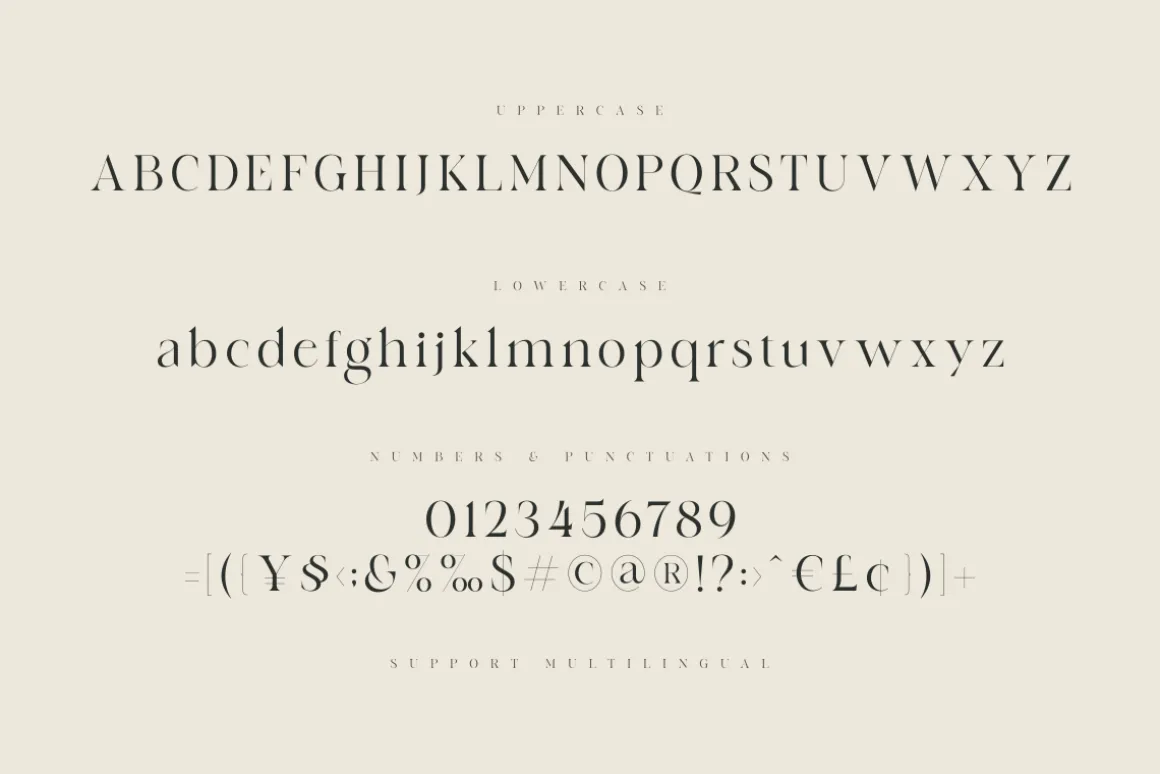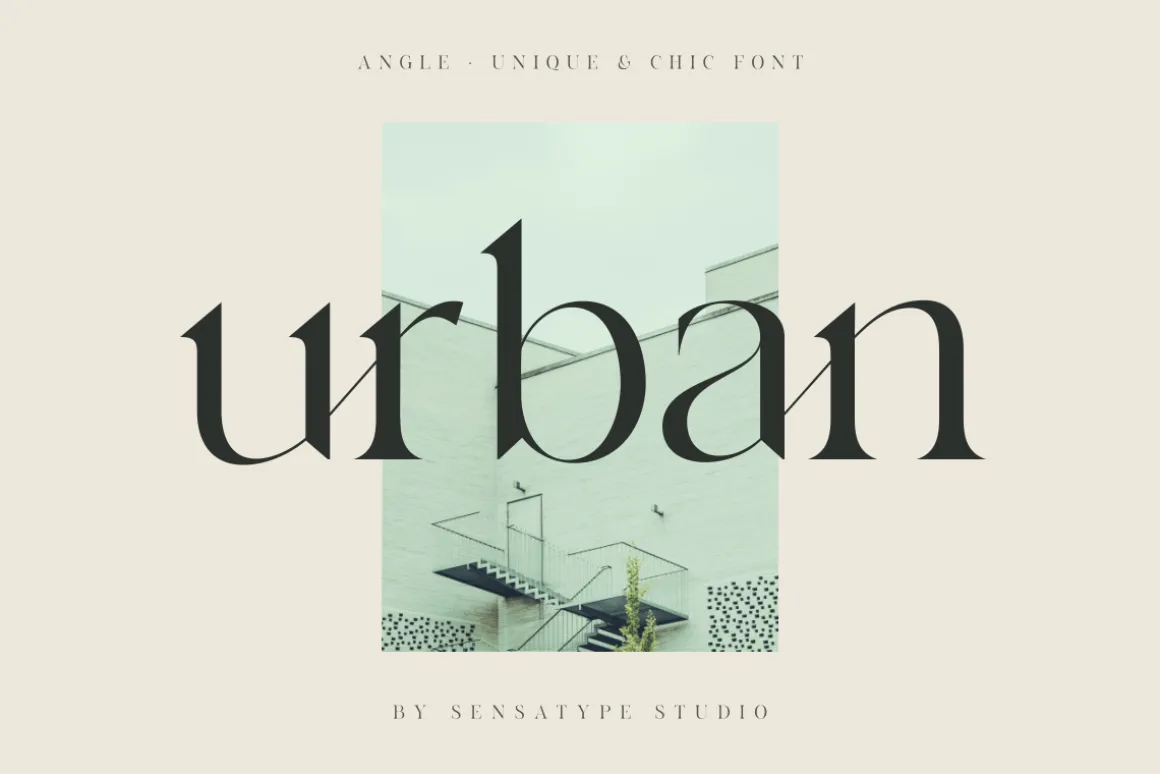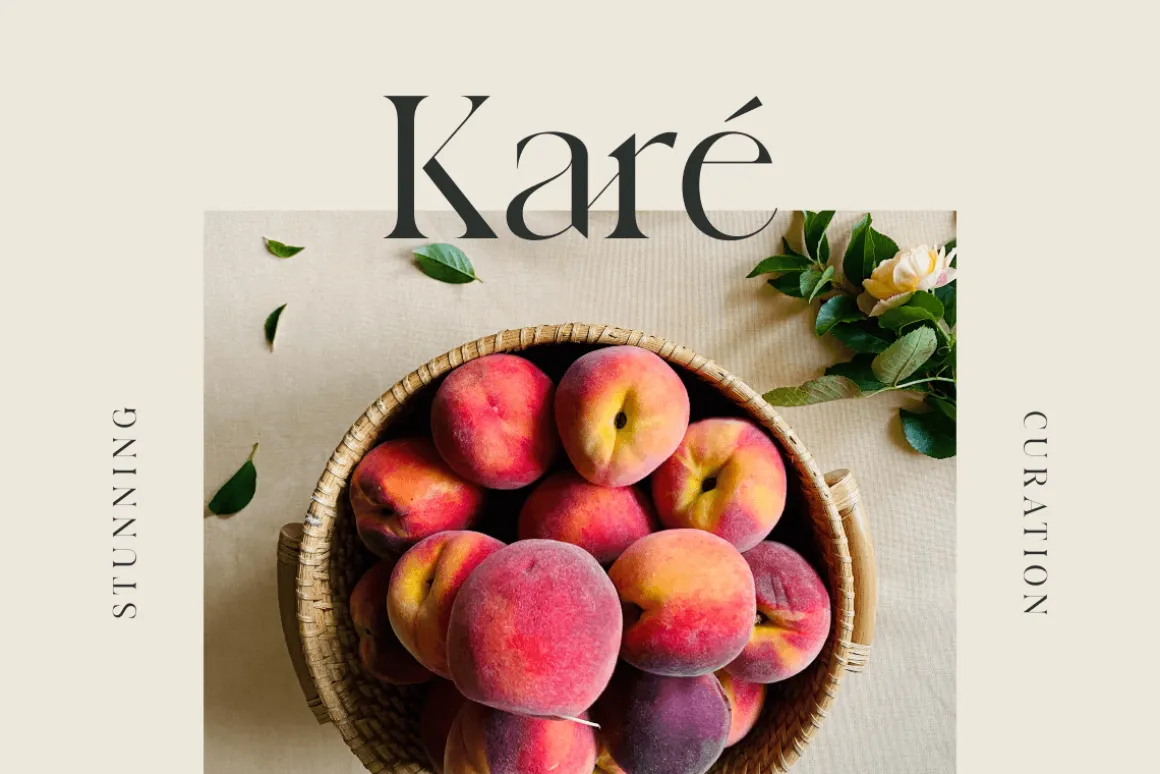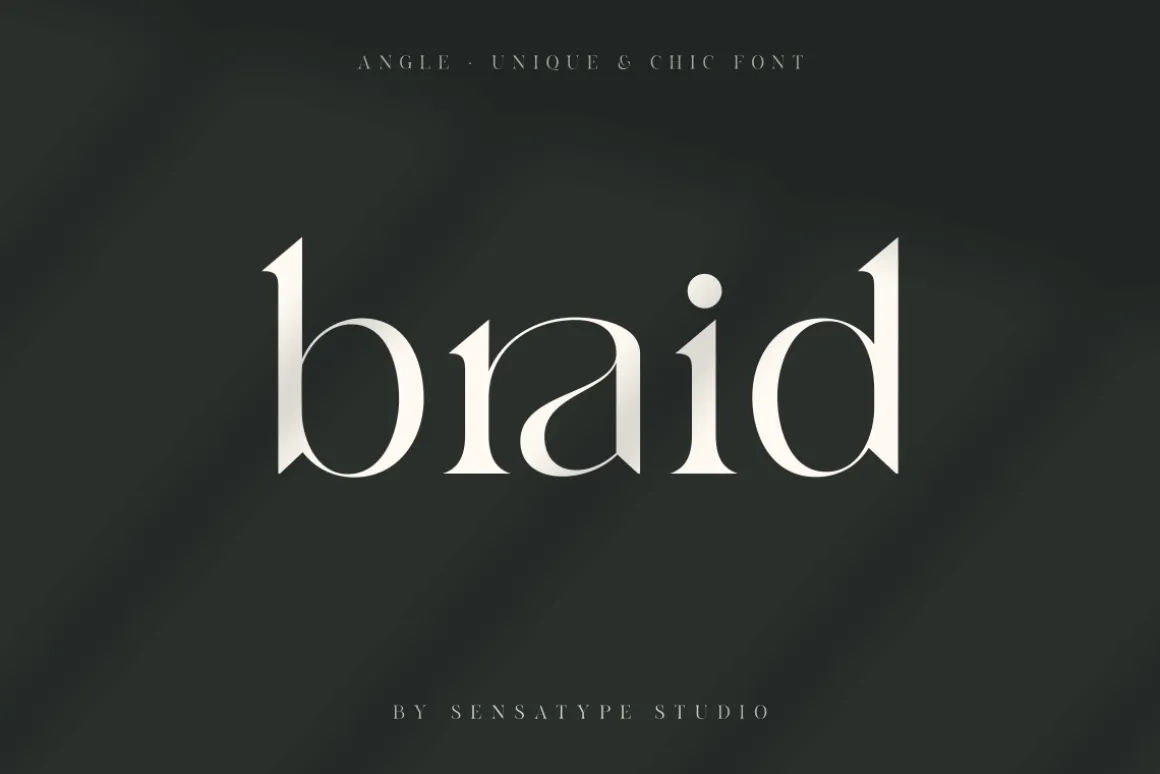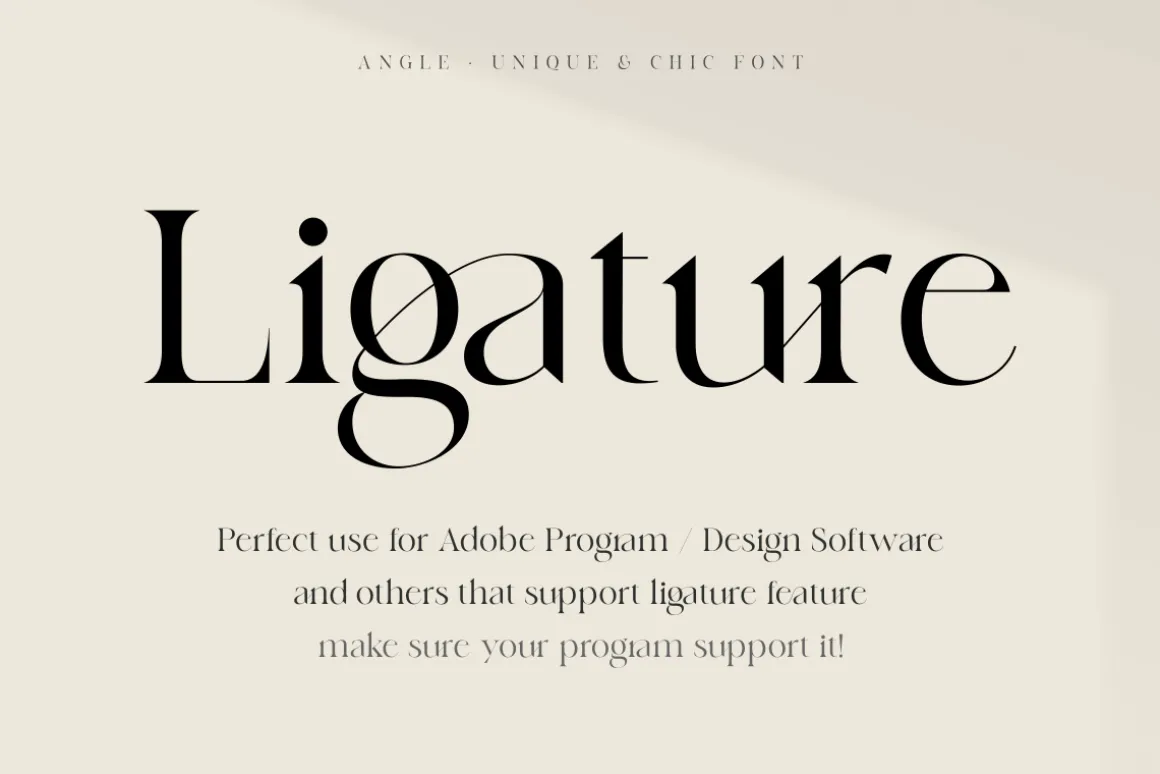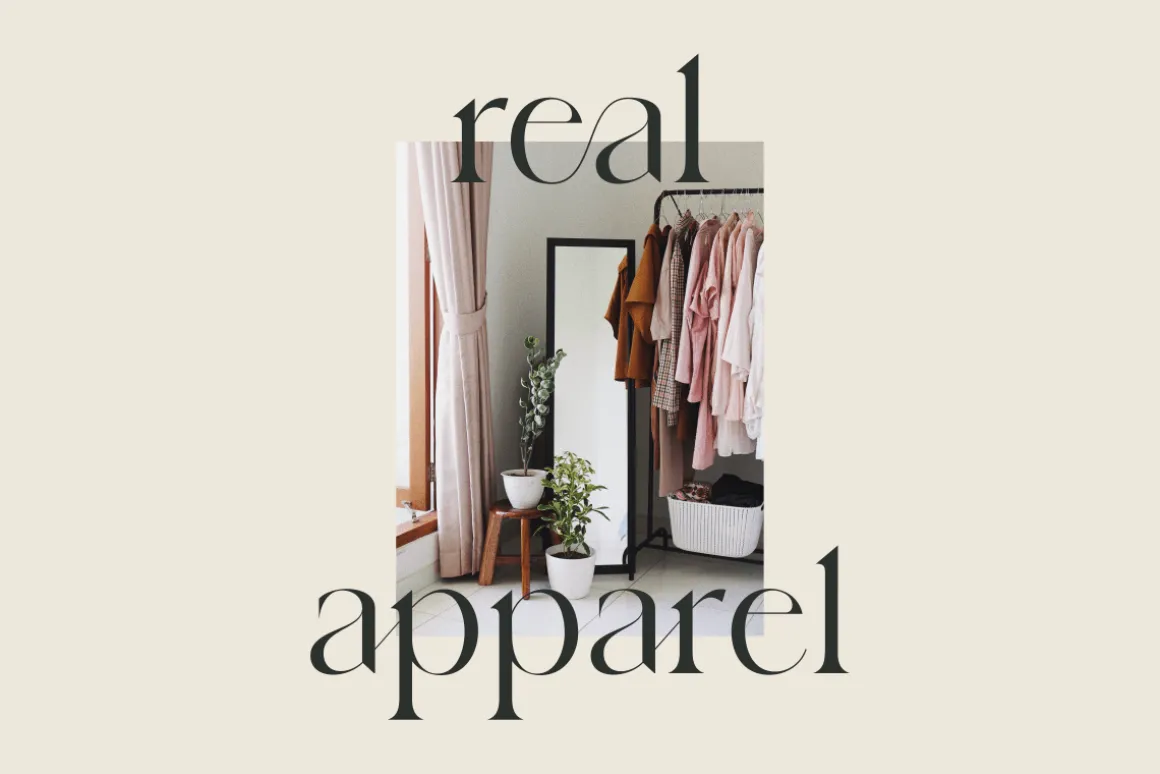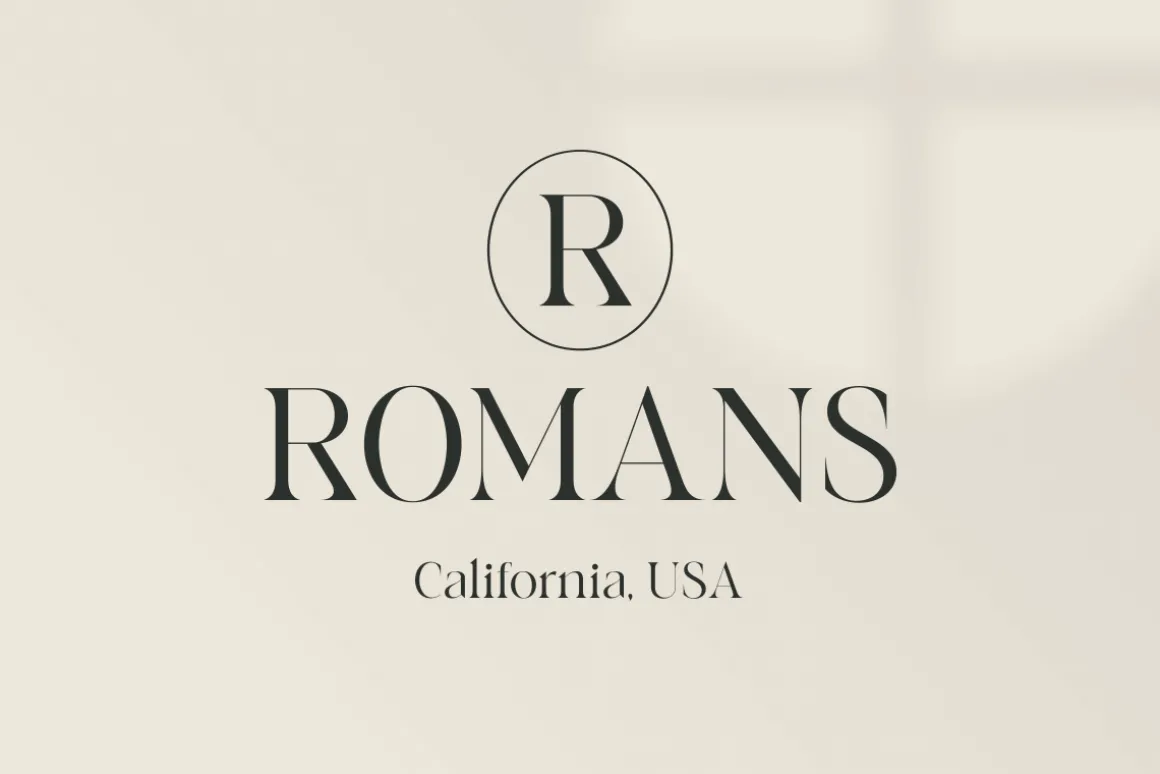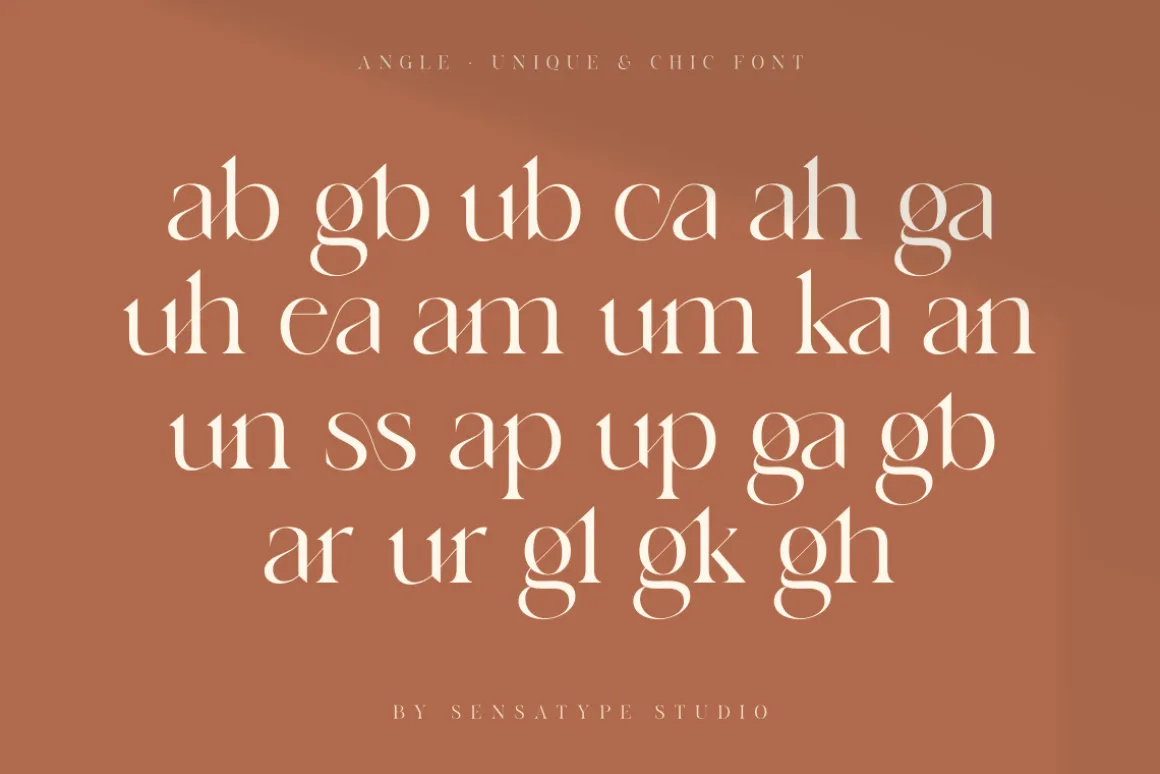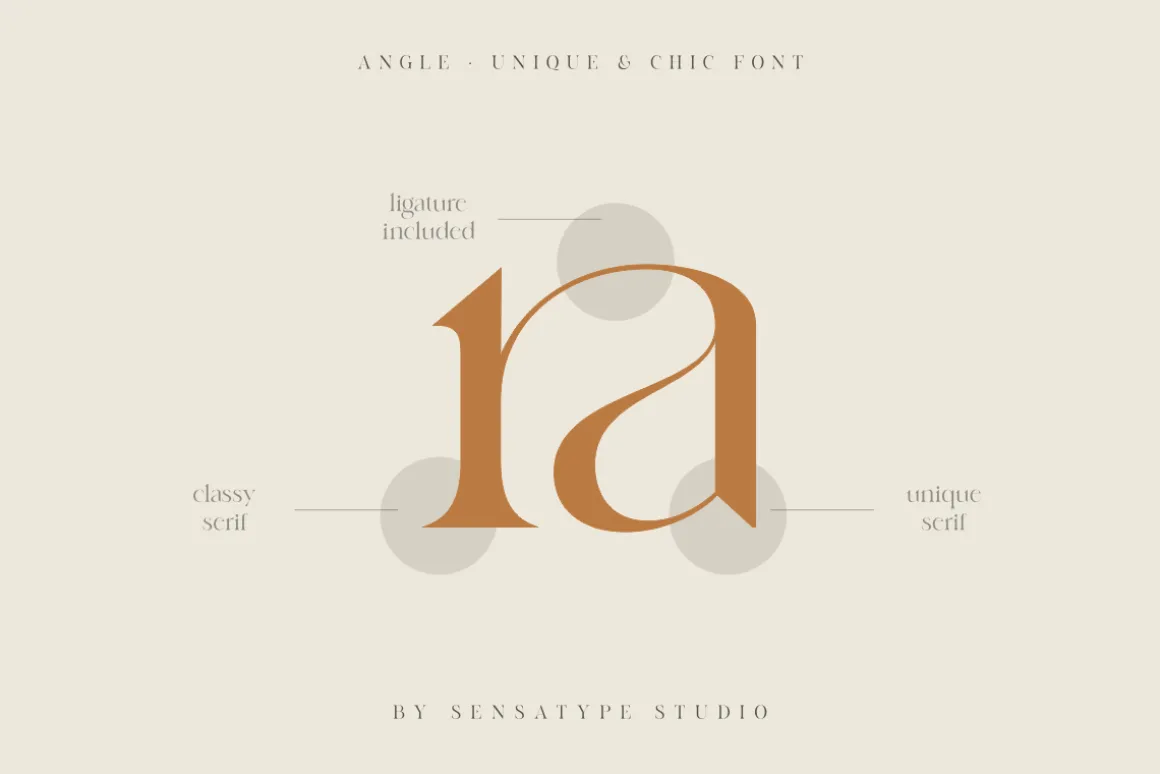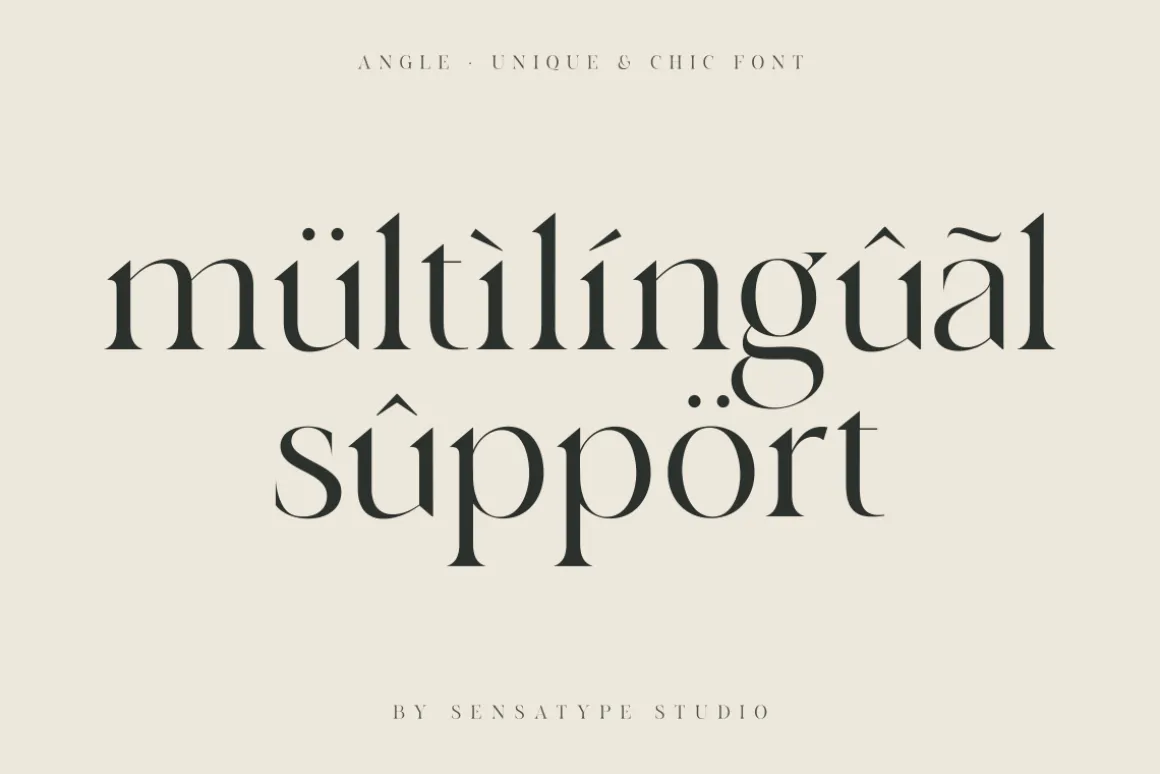
SALE $6 OFF!!!angle is a unique and chic font for brand and logo design.
Based on our experience as a graphic designer who works for a lot of companies, we often are requested to design a logo in a unique style but with an elegant shape. So, we try to brainstorming and create this font to make the idea is going out. This is perfect for BRANDING and LOGO DESIGN. You will get classy, elegant, and certainly unique logos with this font.
(Update v.2) Added 10+ ligatures for your needs. 🙂
angle is also included full set of:
uppercase and lowercase letters
multilingual characters
numerals
punctuation